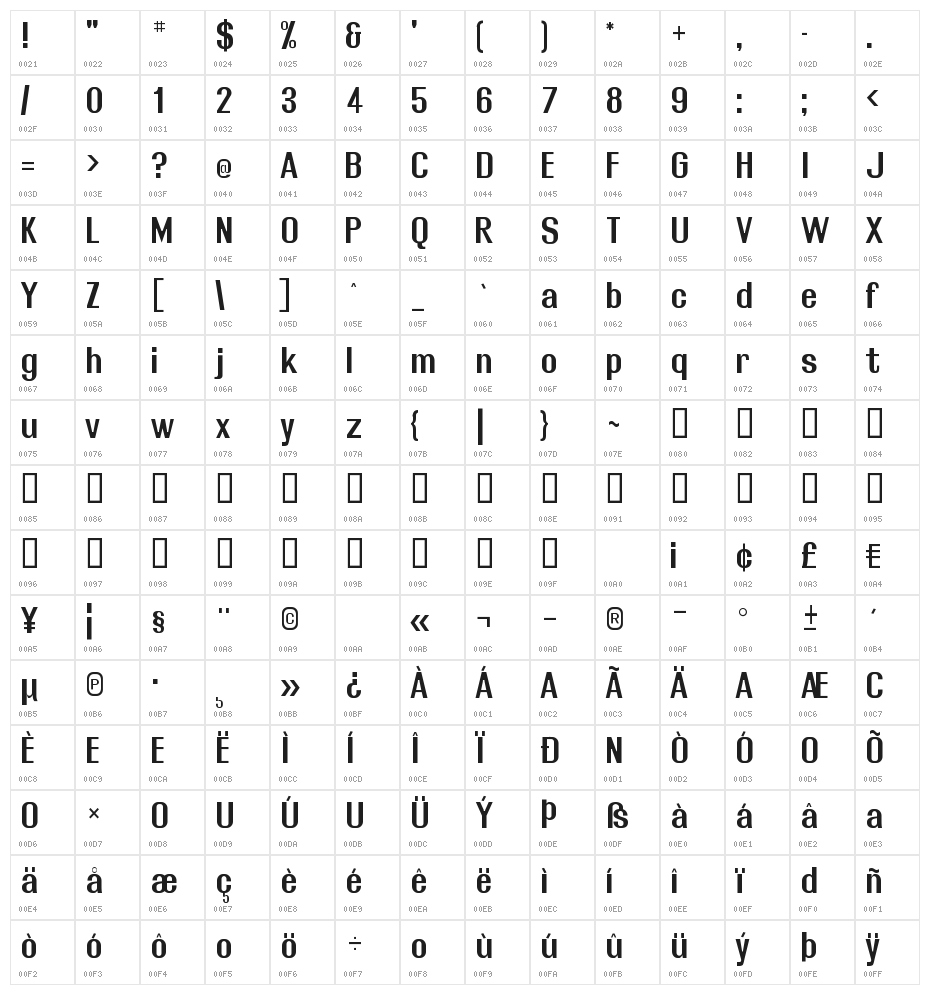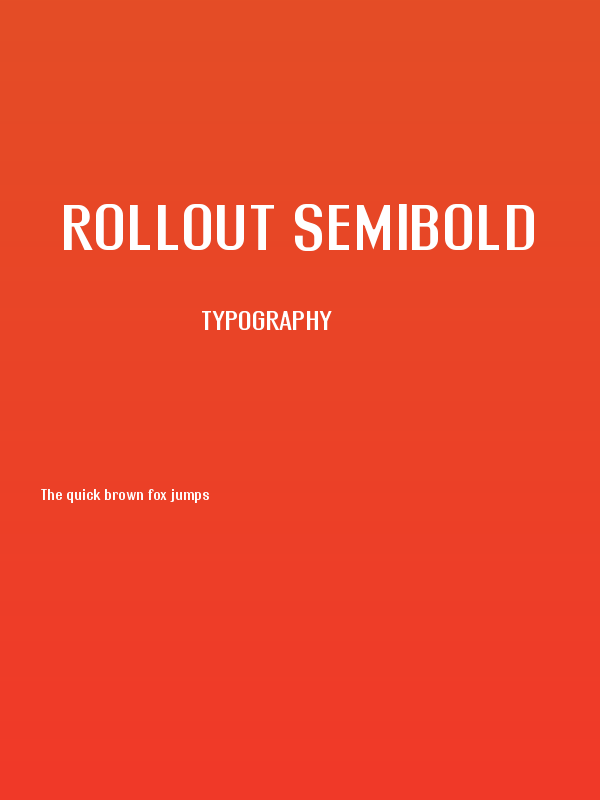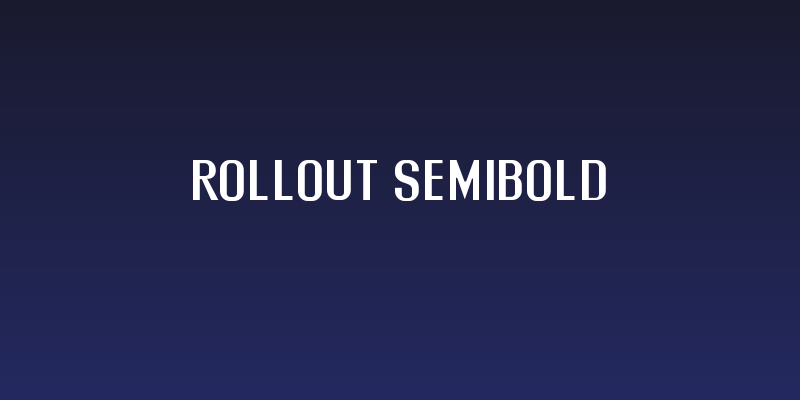
Rollout Semibold Font
Rollout Semibold Description
This font features a bold and modern sans-serif style with clean lines and a strong presence. The uppercase letters are uniform in height, providing a sense of stability and balance. The lowercase letters maintain a consistent x-height, contributing to readability and a cohesive look. The numerals are clear and distinct, making them suitable for both display and text purposes. Special characters are well-defined, ensuring versatility in various design contexts. The overall design is straightforward yet impactful, making it ideal for projects that require a contemporary and professional appearance.
Use CaseHeadlines, Logos, Digital Interfaces
Proposed ProjectsIdeal for branding, advertising, headlines, and digital interfaces.